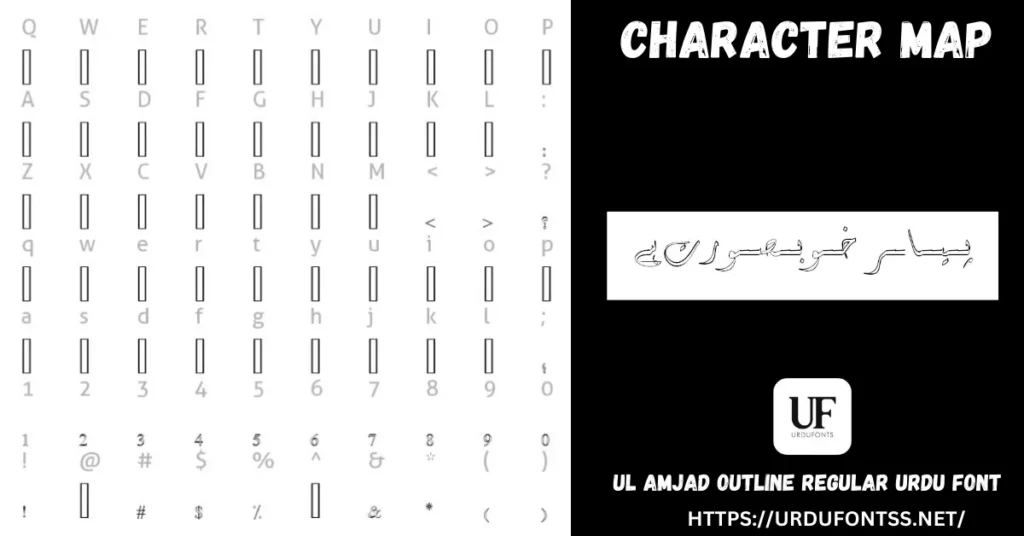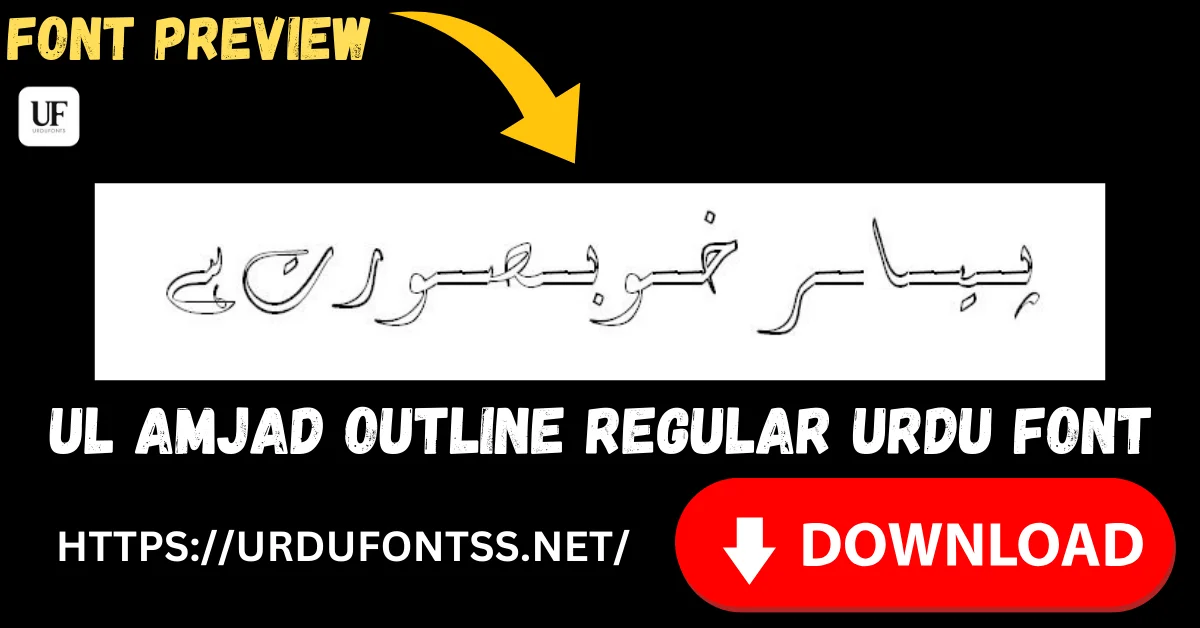
UL Amjad Outline Regular Font – A Stylish Outline Urdu Typeface for Creative Designs
UL Amjad Outline Regular takes the most elegant hand in the UL families — Amjad’s flowing Nastaliq — and draws it hollow: every curve reduced to a fine outline, the inside of each letter left transparent for you to finish. Where other outline fonts go bold and modern, this one stays graceful — made for designs that must look refined rather than loud. Download the TTF file free below and install it on Windows, Mac or Android.
⚠️ Not to be confused with UL Amjad Regular or UL Amjad Shaded: this page is for UL Amjad Outline — hollow letters. UL Amjad Regular is the same hand drawn solid, for reading; UL Amjad Shaded is solid with a fine shadow line, for finished headings. Three variants, three separate files — check the previews before you download.
| Style | Outline — hollow Amjad Nastaliq display lettering |
The sample line shows the same sweeping Nastaliq curves as the solid Amjad Regular — drawn here as outlines only. Calligraphy plus transparency is a combination no other outline font on this site offers.
What Makes UL Amjad Outline Regular Different
- Calligraphy, not geometry: the site’s other outlines are built on bolder, more regular letterforms. Amjad Outline keeps the sloping, hand-drawn character of Nastaliq — so a hollow heading in it still looks like Urdu calligraphy, not like a stencil of a sans font.
- The finishing is yours: the middles are transparent by design. Lay the outline over a photograph, a watercolour wash or a gold-look gradient and the background becomes the fill — one download, unlimited finishes.
- Designed to pair with its own family: set a title in Amjad Outline over a soft image, the subtitle in Amjad Shaded, the text in Amjad Regular — three treatments, one hand.
- Know its limit: the outline is fine, and fine lines vanish when small or low-contrast. This font’s floor is large display sizes on a contrasting background — below that, use the solid Regular.
Best Uses for UL Amjad Outline Regular
- Wedding cards and invitations — names in outline, finished with pastel or foil-look fills.
- Magazine and book covers — a graceful hollow title floating over the cover photograph.
- Layered poster titles — outline text stacked over its own solid copy, slightly offset, for depth without heaviness.
- Classroom and activity pages — large Nastaliq letters to colour and trace.
- Watermark-style headings — very large, light outline lines behind an announcement or a photo feature.
UL Amjad Outline Regular vs Similar Fonts
| Font | How It Differs |
|---|---|
| UL Amjad Regular | The same hand, solid — the reading variant of the family. If your text must be read rather than displayed, download Regular; most Amjad projects end up installing both. |
| UL Amjad Shaded Regular | The same hand, finished — solid letters with a fine shadow line, ready-made for elegant headings. Choose Shaded when the heading should arrive complete; Outline when you intend to finish it yourself. |
| UL Bilal Outline Regular | From the Bilal family — bolder, straighter, more contemporary. Choose Bilal for a modern poster edge; Amjad Outline when the design should stay calligraphic and formal. |
Can I use UL Amjad Outline for body text or small headings?
No. Its fine outline strokes turn faint and hard to read when small. Keep it for large display lines and set all reading text in a solid font such as UL Amjad Regular.